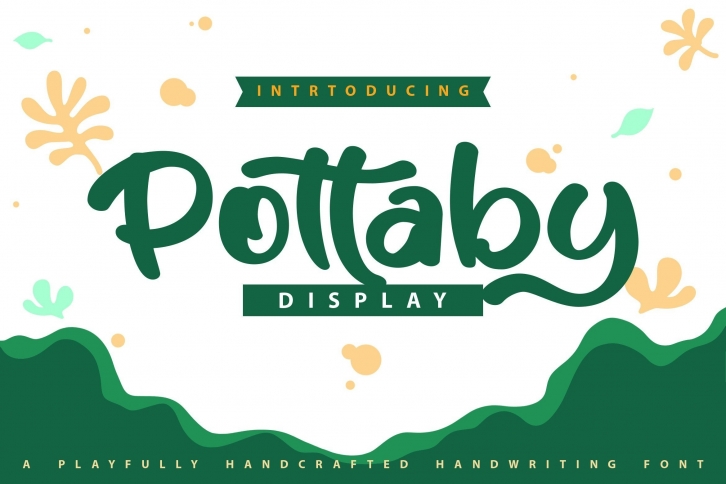
Pottaby is a sweet and fun handwriting font that would complement a range of projects, including stationery, branding, packaging, and more. Bring a touch of the romantic and playful to your work when you use this fun script font.